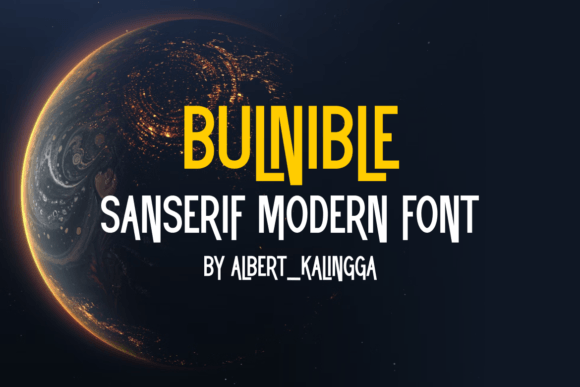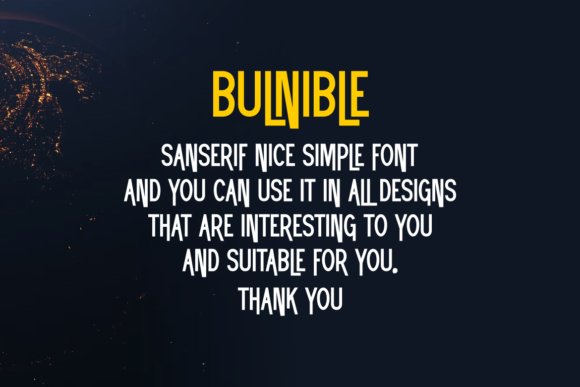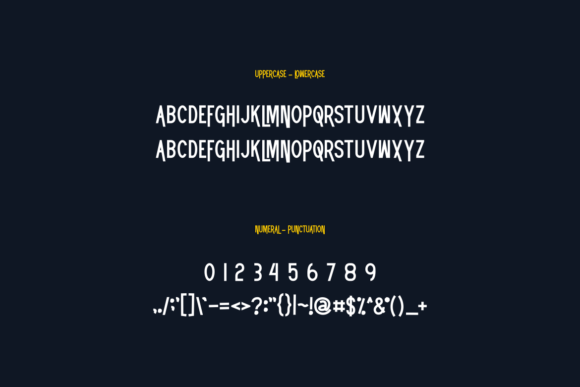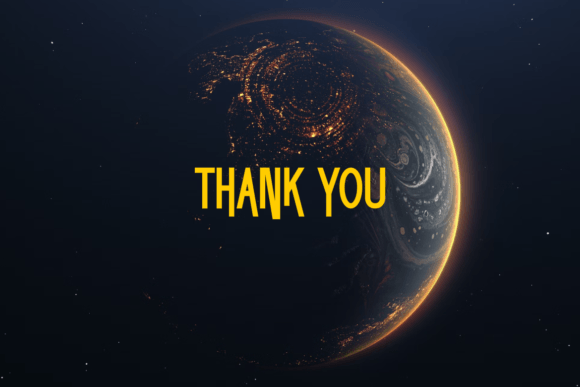
Bulnible Font: Elevate Your Designs with Elegance and Modernity
In the world of typography, fonts play a crucial role in conveying the tone and aesthetic of a design. For designers and crafters seeking a modern and elegant sans serif font, Bulnible is an excellent choice. This beautiful font boasts a minimalist and clean vibe, making it versatile for various applications, from book covers to social media posts.
The Characteristics of Bulnible Font
Bulnible is a thoughtfully crafted sans serif font, characterized by its:
- Elegant and Modern Design: Bulnible’s sleek lines and curves create a sophisticated look that’s perfect for designs that require a touch of refinement.
- Minimalist and Clean Vibe: The font’s simplicity ensures that your message takes center stage, while its clean lines provide a crisp and fresh appearance.
- Versatility: Bulnible’s adaptability makes it suitable for a wide range of design projects, from print materials to digital applications.
Design Applications for Bulnible Font
The versatility of Bulnible font makes it an excellent choice for:
- Book Covers: Create a stunning first impression with Bulnible font on your book cover, perfect for fiction, non-fiction, or any genre that requires a touch of sophistication.
- Magazines: Use Bulnible font to add a modern and elegant touch to your magazine’s layout, making it perfect for fashion, lifestyle, or art publications.
- Social Media Posts: Elevate your social media presence with Bulnible font, making your posts stand out and engaging your audience with its clean and modern design.
- Invitations: Make your invitations memorable with Bulnible font, suitable for weddings, parties, or any special occasion that requires a touch of elegance.
Why Choose Bulnible Font?
With so many fonts available, why choose Bulnible? Here are a few compelling reasons:
- Unique and Distinctive: Bulnible font offers a fresh and unique perspective, setting your designs apart from the rest.
- Ease of Use: Its clean and simple design makes it easy to read and understand, ensuring your message is conveyed effectively.
- Customization Options: Bulnible font can be easily customized to fit your design needs, allowing you to experiment with different styles and effects.
Tips for Using Bulnible Font Effectively
To get the most out of Bulnible font, consider the following tips:
- Pair with Complementary Fonts: Experiment with font combinations to create visual interest and add depth to your designs.
- Adjust Font Sizes and Weights: Play with font sizes and weights to create a clear visual hierarchy and emphasize key elements.
- Experiment with Colors: Try different color schemes to find the perfect match for your design, ensuring Bulnible font stands out or blends seamlessly.
Bulnible font is an excellent addition to any designer’s toolkit, offering a perfect blend of elegance, modernity, and versatility. Its minimalist and clean vibe makes it suitable for a wide range of applications, from book covers to social media posts. By incorporating Bulnible font into your designs, you’ll elevate your work and leave a lasting impression on your audience.